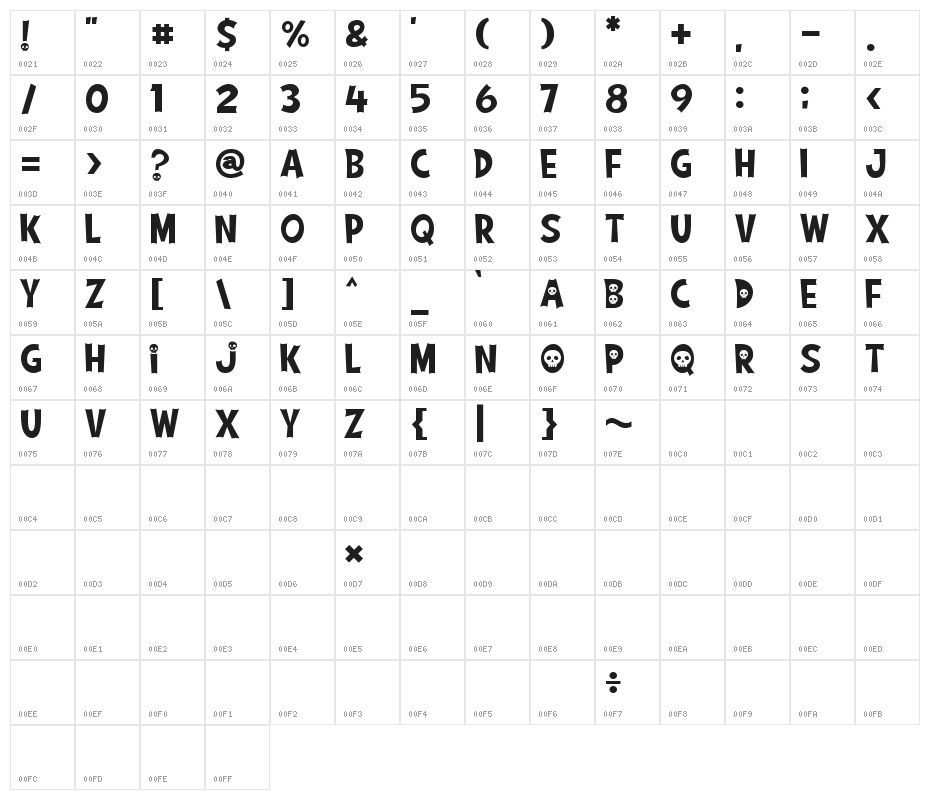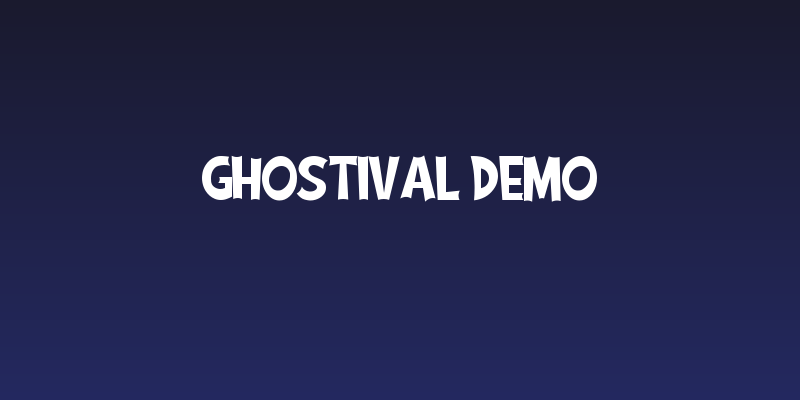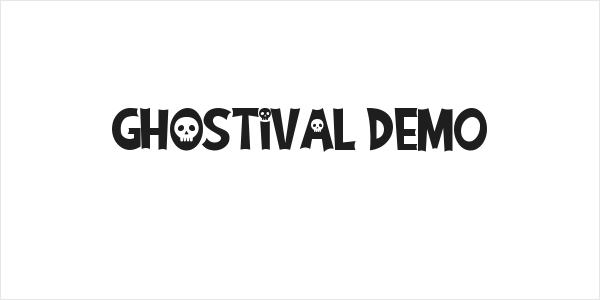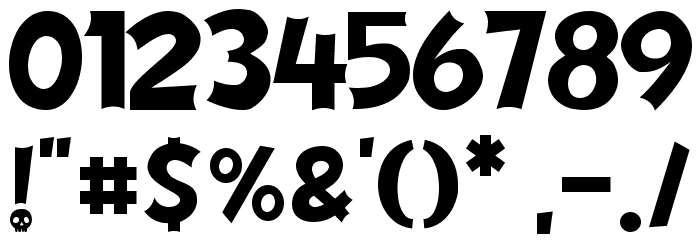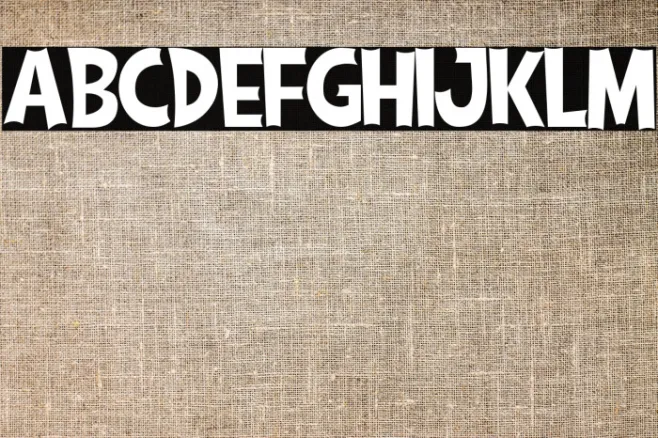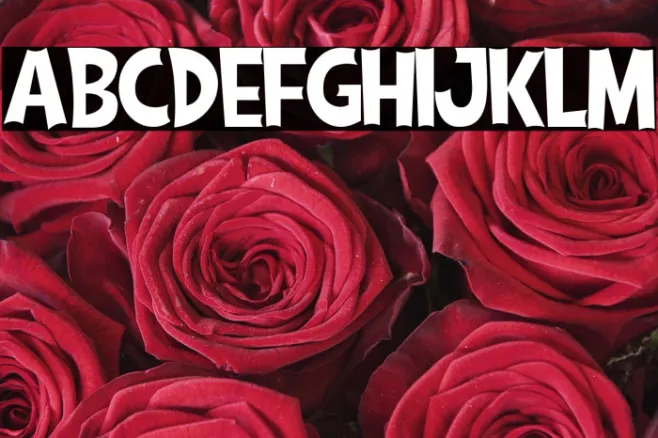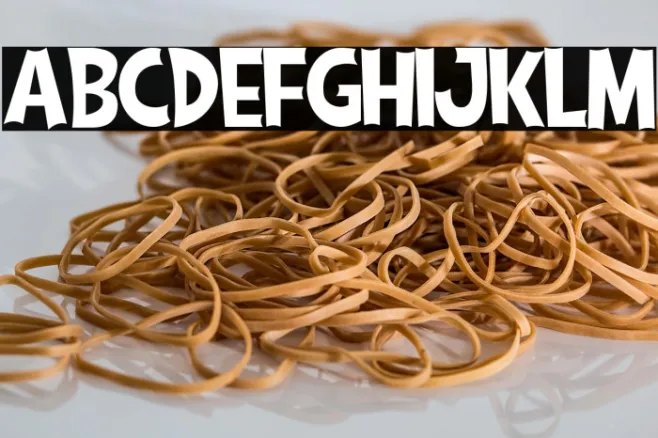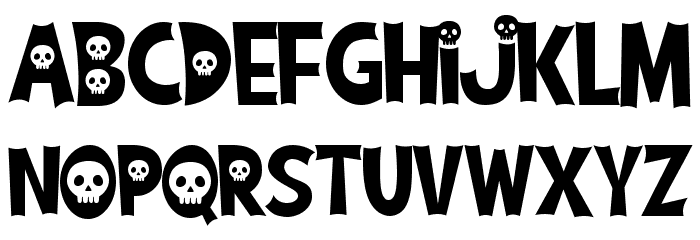
Ghostival DEMO Font
Ghostival DEMO Description
This playful and spooky font features bold, thick strokes with a whimsical touch, incorporating skull motifs within certain characters. The letters are slightly irregular, adding to the eerie yet fun aesthetic. The numbers and special characters maintain the same boldness and playful style, making it perfect for Halloween-themed projects or any design that requires a touch of the macabre. The font's unique character is enhanced by its decorative elements, which are seamlessly integrated into the letterforms.